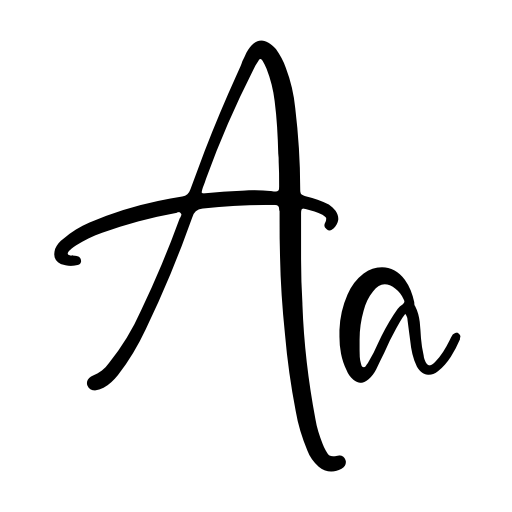
Austin Texas is a playful, handwritten script font with a casual, light stroke that gives it an airy and friendly feel. Its tall, narrow letterforms and quirky loops make it perfect for creative projects, informal branding, and personal invitations where a touch of personality and charm is desired. This font works best in headers, logos, and designs needing a lively, approachable atmosphere.
Austin Texas Font
About Austin Texas Font